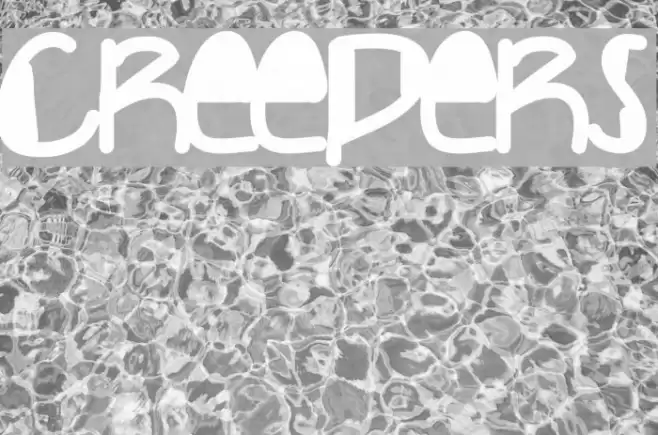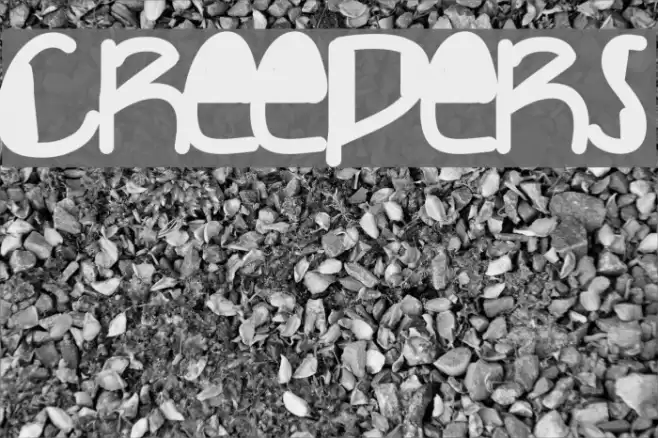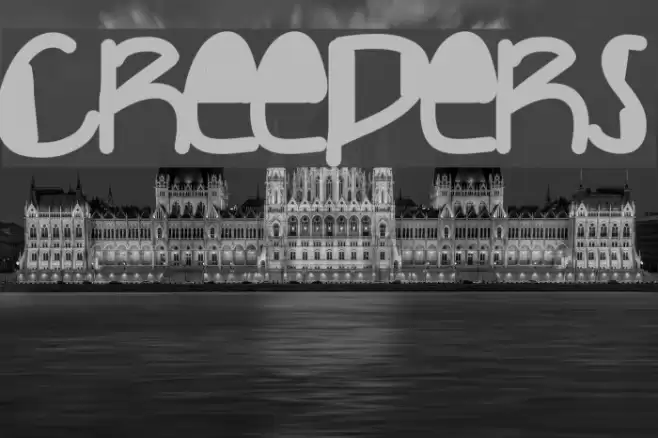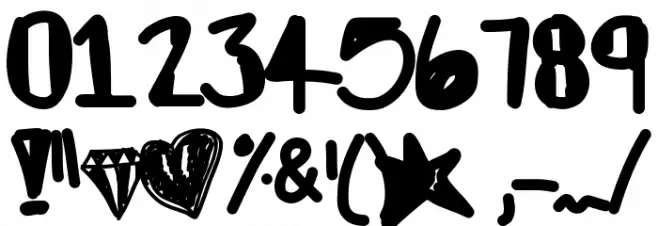
Creepers Font
Creepers Description
This font features a playful and bold handwritten style with a unique, quirky character. The letters are thick and rounded, with a slightly uneven baseline that adds to its casual and informal appearance. The uppercase and lowercase letters maintain a consistent style, with exaggerated curves and loops that give the font a lively and energetic feel. The numbers and special characters follow the same design principles, ensuring a cohesive look across all elements. This font's distinctive style makes it stand out, perfect for projects that require a fun and engaging visual impact.
A bold, playful handwritten font with a quirky, energetic style from Uncategorized fonts.
- Proposed Projects: Ideal for children's books, playful branding, party invitations, and creative posters.
- Overall Style: Playful